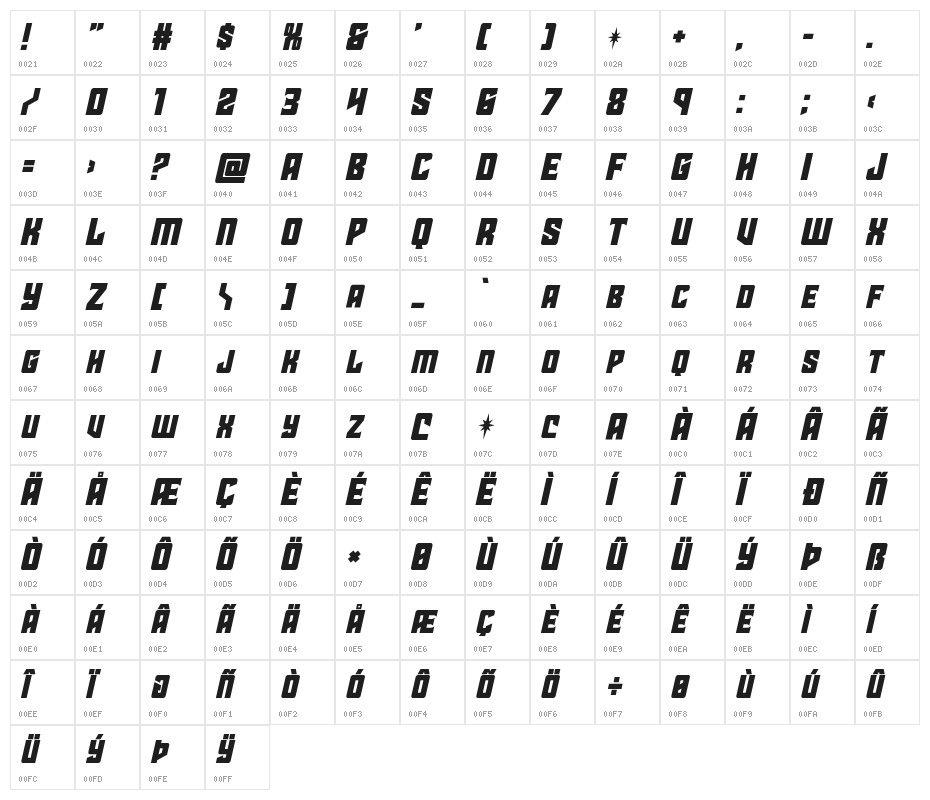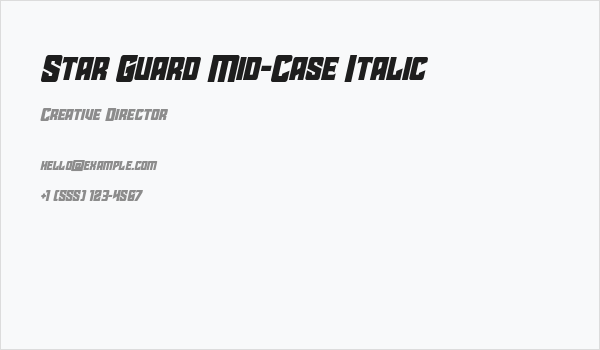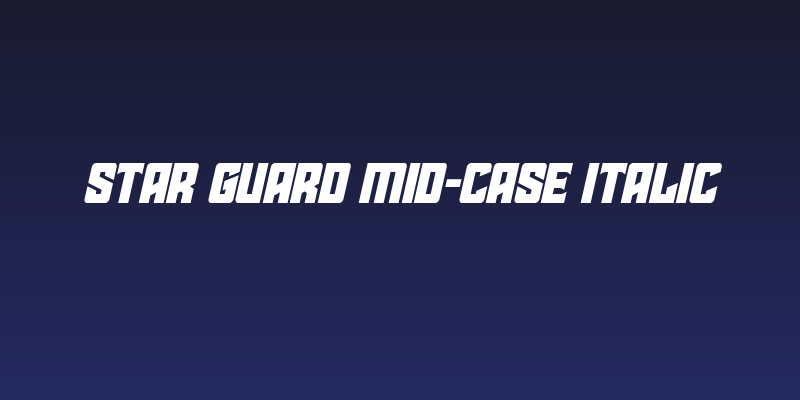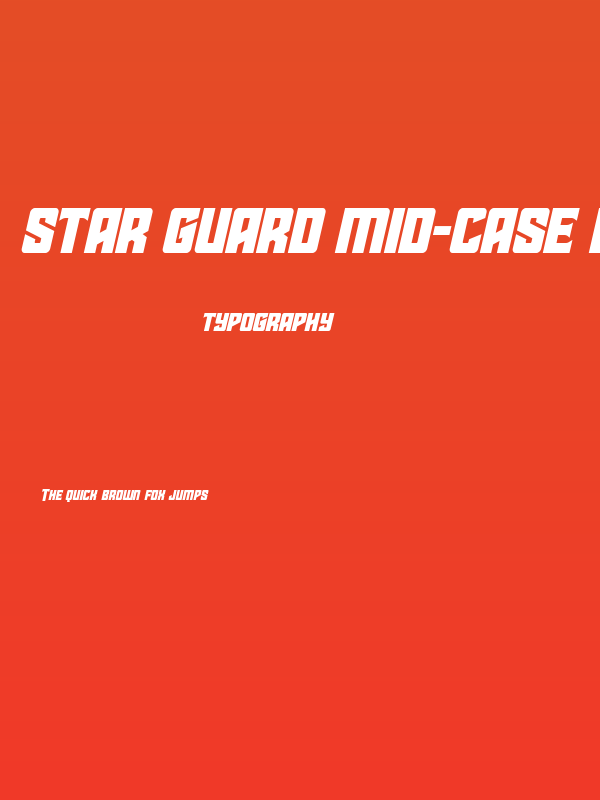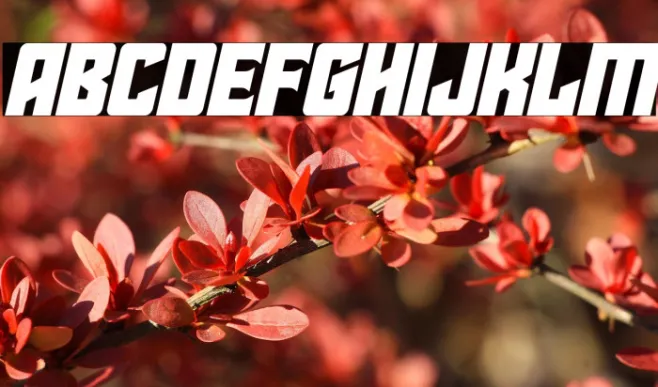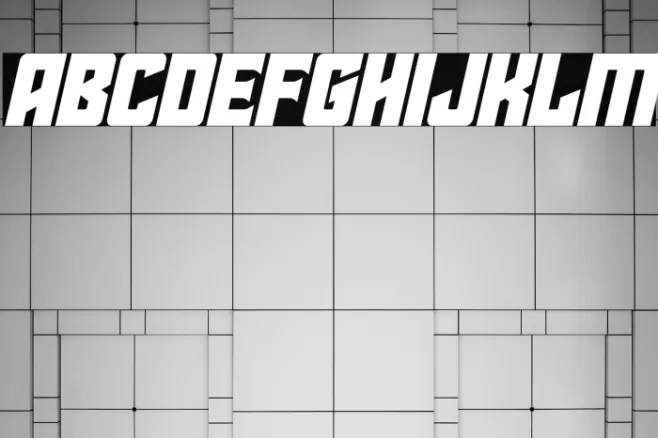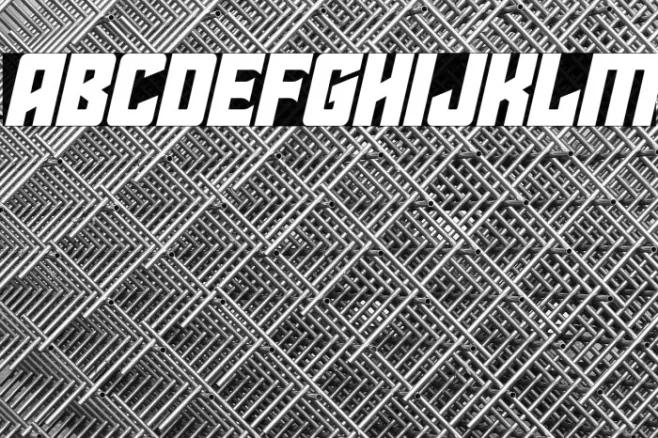
Star Guard Mid-Case Italic Font
Star Guard Mid-Case Italic Description
This font features a bold, italicized style with a strong, dynamic presence. The characters are designed with sharp angles and a slight slant, giving them a sense of motion and energy. The uppercase and lowercase letters maintain a consistent weight, contributing to a cohesive look. The numbers and special characters follow the same stylistic approach, ensuring uniformity across all elements. The font's boldness and angular design make it stand out, while the italic slant adds a touch of elegance and modernity.
| Proposed Projects | Ideal for sports branding, action-themed posters, dynamic logos, and modern advertising campaigns. |